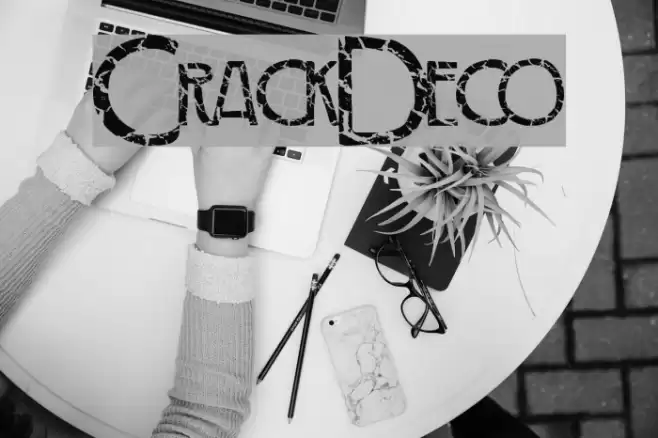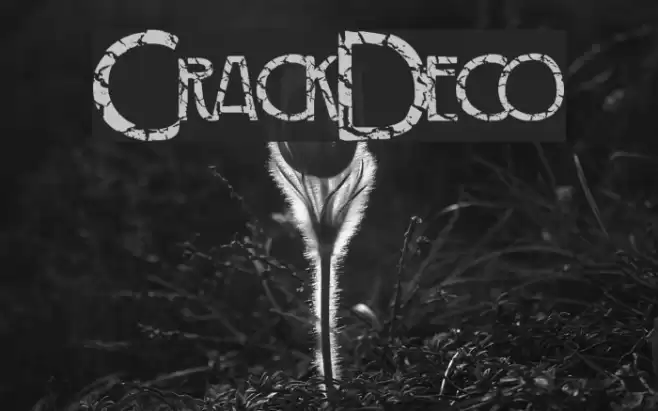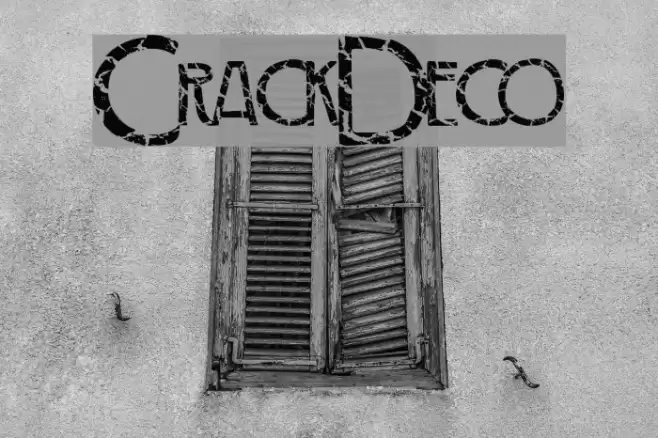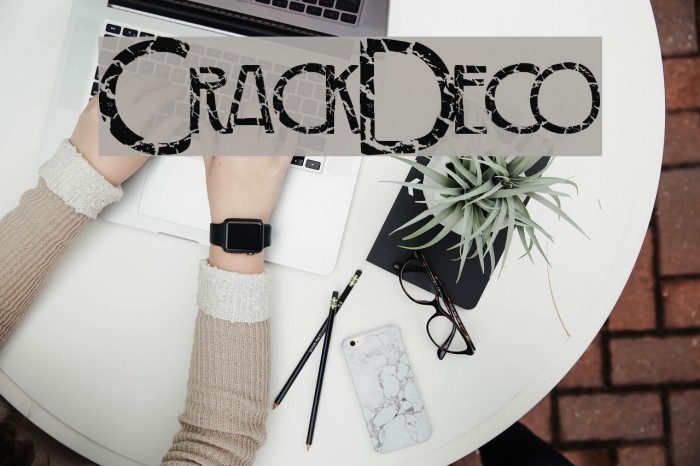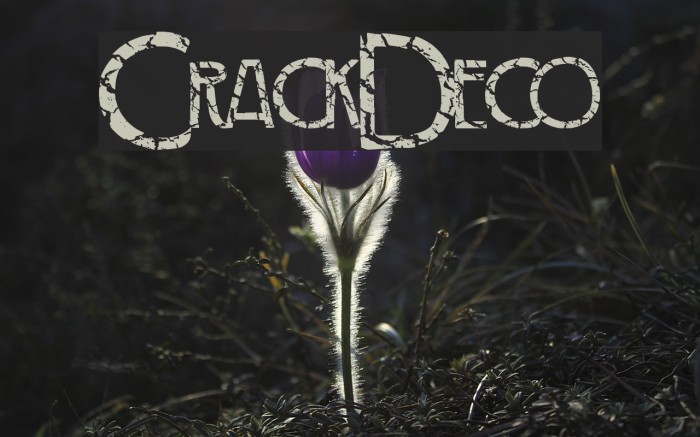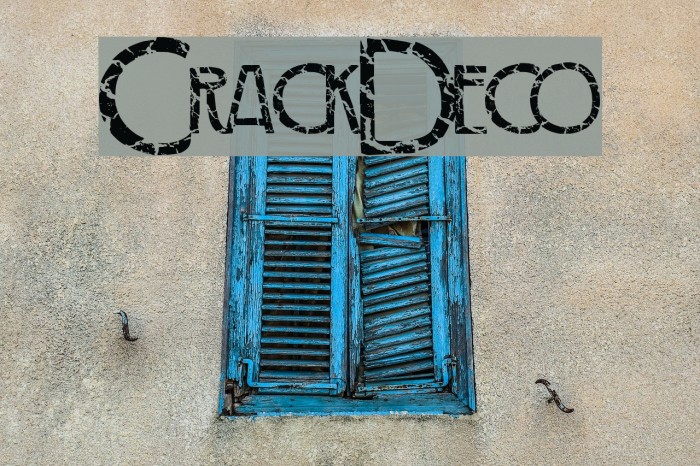
CrackDeco Font
CrackDeco Description
This font features a unique, distressed appearance with a cracked texture that gives it a rugged, weathered look. The uppercase and lowercase letters maintain a consistent style, with sharp edges and a bold presence. The characters are evenly spaced, ensuring readability despite the decorative elements. The numbers and special characters follow the same design, making the font versatile for various uses. Its distinct style is perfect for projects that require a bold statement or an edgy, artistic touch.
A bold, cracked texture font with a rugged, distressed style from Distorted Eroded fonts.
- Proposed Projects: Ideal for posters, album covers, branding for edgy products, or any project needing a bold, artistic statement.